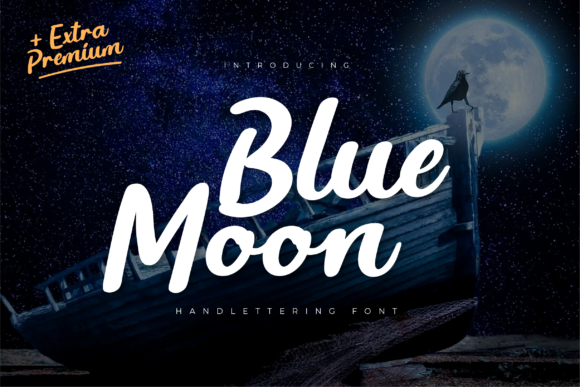
First Impressions: A Love Letter to Blue Moon Font
Blue Moon is a flowing handwritten font that exudes an elegant touch, making it perfect for a wide range of projects. Here are a few things I love about it:
- ✨ Elegant and Refined: The fluid strokes and classic letterforms give Blue Moon an air of sophistication.
- ✅ Versatile: Whether you’re working on wedding invitations, branding, or packaging, Blue Moon fits right in.
- 💫 Distinctive: Its unique style ensures your designs stand out from the crowd.
Honest Review: The Not-Perfect-but-Almost Perfect Font
No font is perfect, and Blue Moon has its quirks:
- 🤔 Limited Use in Small Sizes: The intricate details may get lost when used in very small sizes, which can be a limitation for certain projects.
- ⚠️ Requires Attention to Kerning: Some letter combinations might require manual kerning to achieve the best look.
The Story Behind Blue Moon Font
| Font Name | Blue Moon Font |
| Author | twinletter |
| Is Blue Moon Font suitable for body text? | While it’s primarily designed for headlines and decorative text, its readability makes it usable for short paragraphs. |
| Does Blue Moon Font support OpenType features? | Yes, it offers a range of OpenType features, including ligatures and stylistic alternates, for enhanced customization. |
Blue Moon Font is more than just a typeface; it’s a statement. With its flowing lines and timeless elegance, it has the power to elevate your designs. Whether you’re a seasoned designer or a creative hobbyist, Blue Moon Font invites you to explore new creative horizons. So, go ahead, fall in love with its distinct style, and let your designs shine under the blue moon!